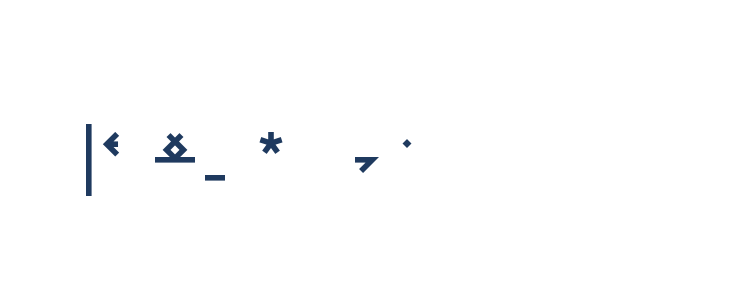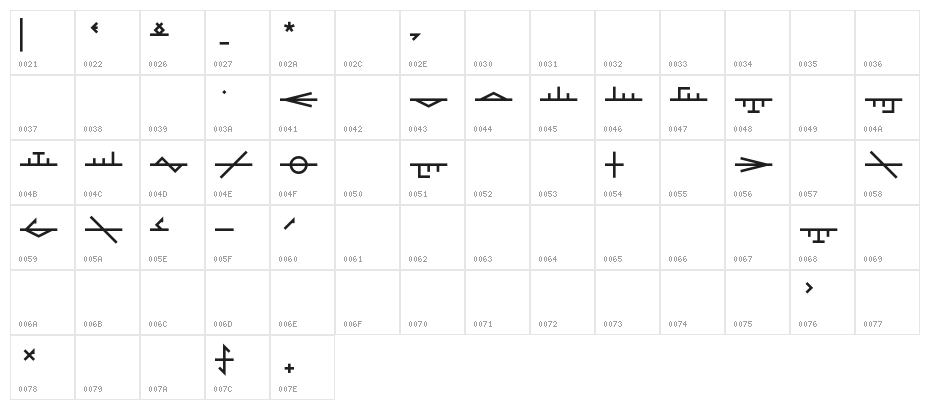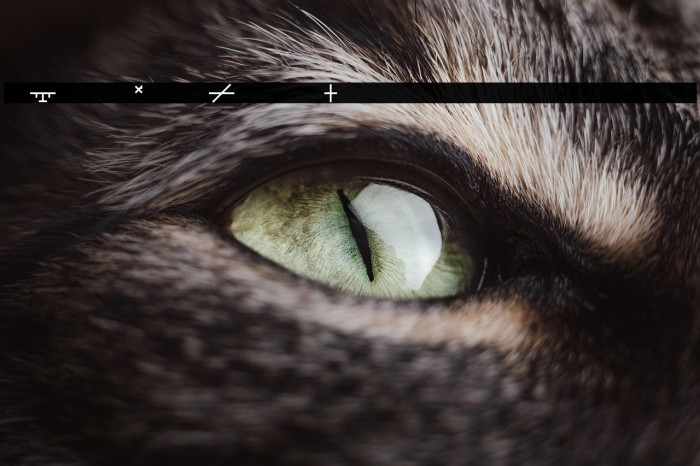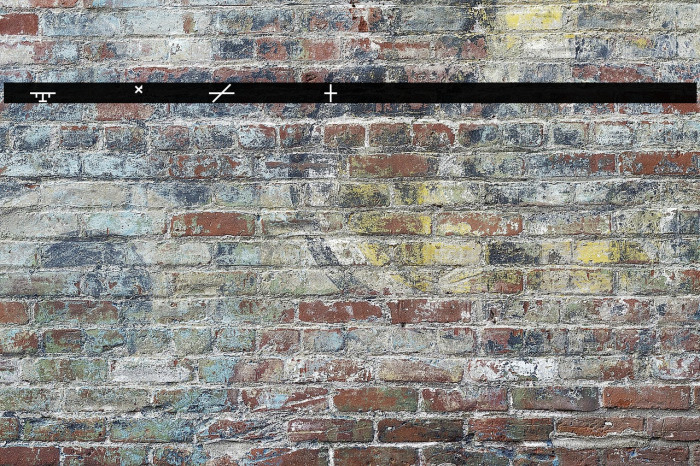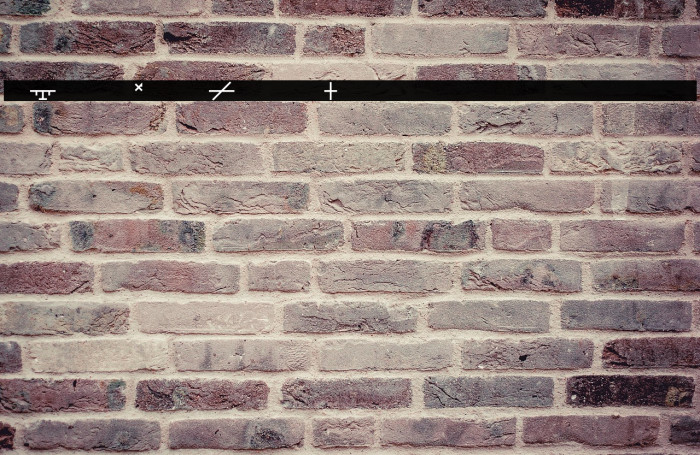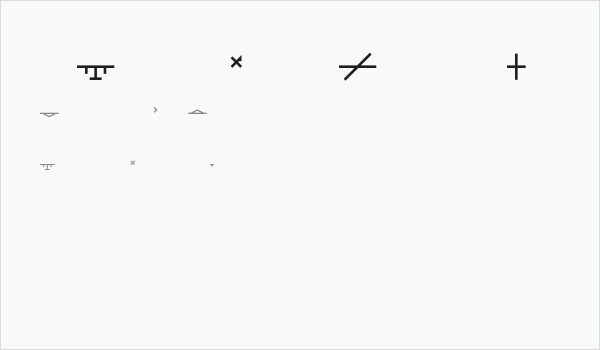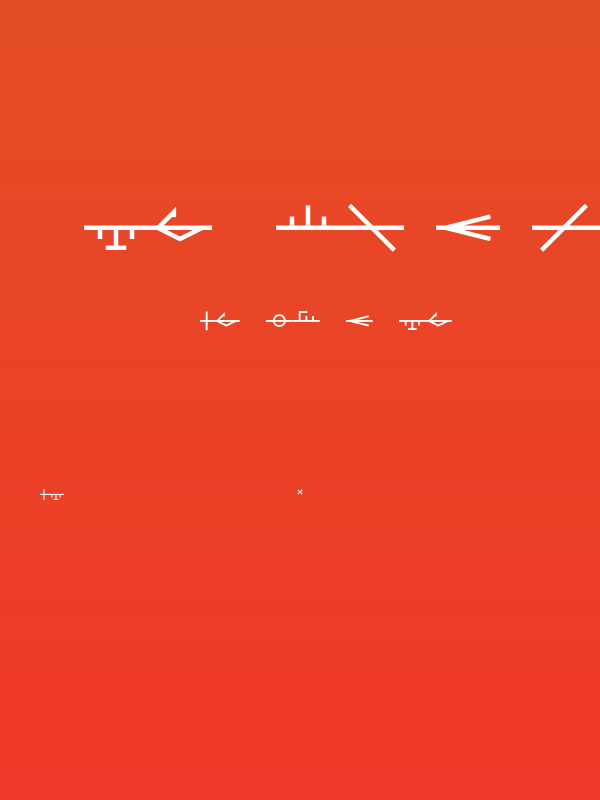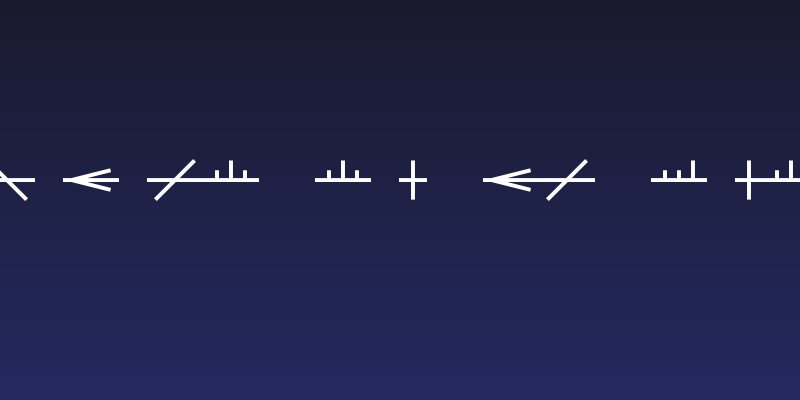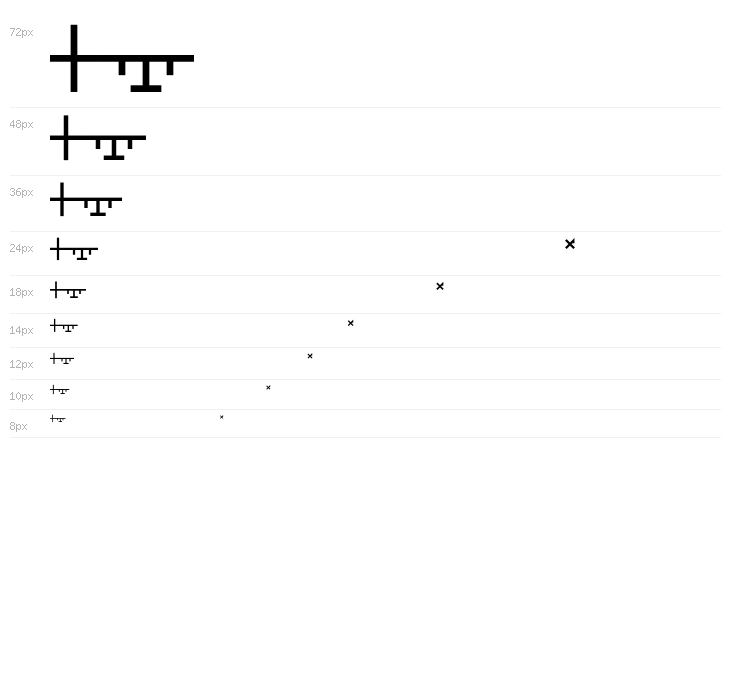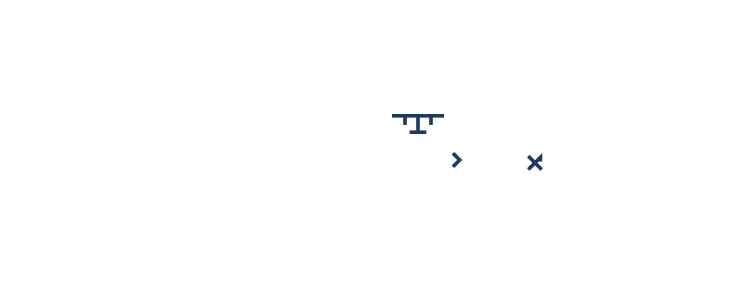
Phyrexia Neue Transliteration Font
Phyrexia Neue Transliteration Description
This font features a highly abstract and geometric design, characterized by sharp angles, intersecting lines, and unique symbols. Each character is distinct, with a futuristic and cryptic appearance, resembling a form of alien script or coded language. The design is minimalistic yet intricate, with a focus on linear elements and symmetry. The characters are composed of straight lines and geometric shapes, creating a sense of mystery and otherworldliness. This font is not meant for traditional readability but rather for artistic and thematic expression.
| Use Case | Logos, Decorative elements |
| Proposed Projects | Ideal for sci-fi themed projects, video game interfaces, futuristic branding, or as a decorative element in graphic design. |